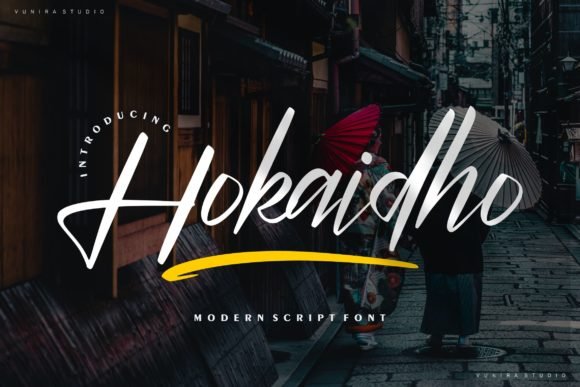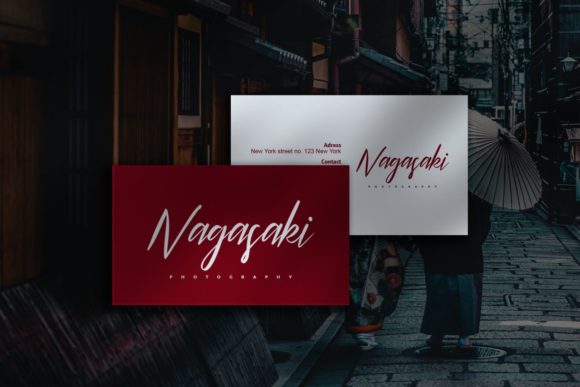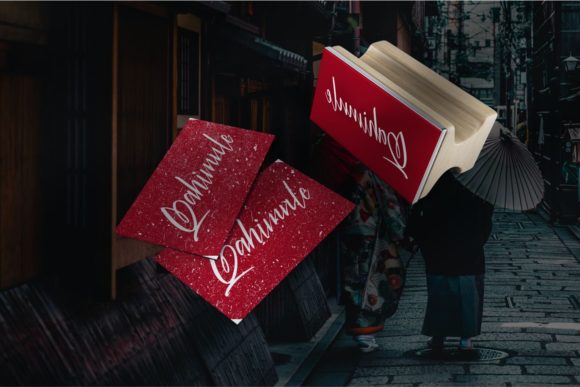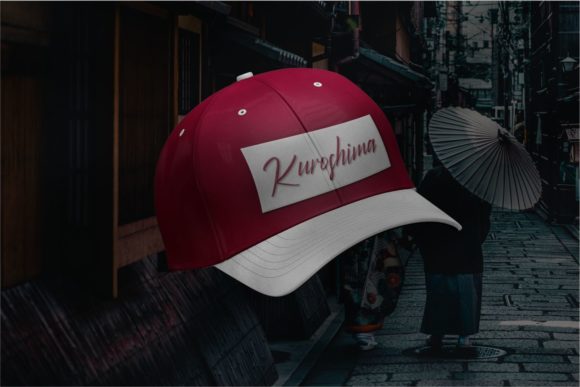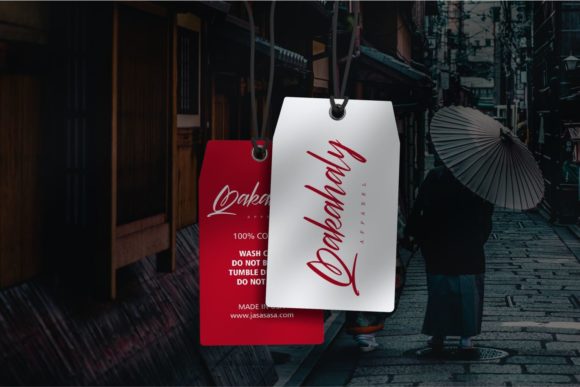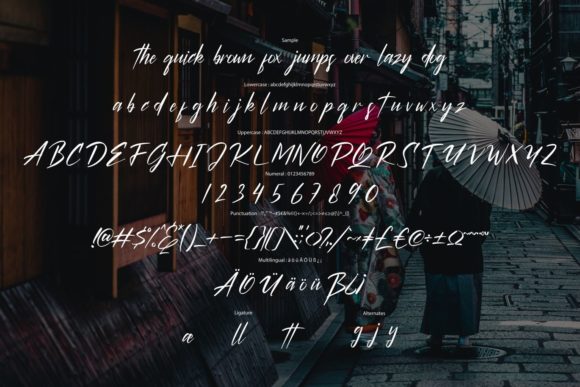
The Perfect Touch: Unlocking the Beauty of Hokaidho Font
Remember that moment when you stumbled upon the perfect font to elevate your design? It’s like finding the missing piece of a puzzle – everything just falls into place. For designers, this moment is a game-changer. It’s the difference between a good design and a great one. And, if you’re anything like us, you’re always on the lookout for that special something to take your work to the next level.
Enter Hokaidho Font, a stylish and delicate script font that’s sure to become your new go-to. With its clean, thin, and smooth vibe, it’s the perfect addition to any design. Whether you’re working on a wedding invitation, a branding project, or a social media campaign, Hokaidho Font is the perfect choice to add a touch of elegance and sophistication.
As a valuable asset for designers, Hokaidho Font offers a level of versatility and flexibility that’s hard to find. Its unique design makes it suitable for a wide range of projects, from fine art to commercial use. So, what are you waiting for? Discover the beauty of Hokaidho Font and take your designs to new heights.
Hokaidho Font Key Features
- Font Family: Hokaidho is a unique, modern script font designed for various applications, including logos, titles, and body text.
- Unique Characteristics: The font features a distinctive, flowing script style with subtle nuances and variations in letterforms, giving it a hand-written feel.
Hokaidho Font Review
I’ve had the chance to dive into the Hokaidho Font, and I must say it’s an intriguing choice for designers. ✨ The font’s elegant, cursive script is reminiscent of traditional Japanese calligraphy, making it perfect for creating a sophisticated and refined look.
Here are some of its standout features:
- ✨ Beautifully crafted cursive script that adds a touch of elegance to any design.
- ✨ Supports both Western and Eastern languages, including Japanese, making it versatile for global projects.
- ✨ Comes in a range of weights, from light to bold, allowing for greater design flexibility.
However, I do have some concerns:
- ⚠️ The font may not be the best choice for text-heavy designs, as its cursive script can make reading difficult at smaller font sizes.
- ⚠️ Some of the weights may feel slightly inconsistent, which could impact the overall design cohesion.
Overall, I think the Hokaidho Font is a great addition to any designer’s toolkit. While it may have some limitations, its unique character and versatility make it a valuable choice for the right project. With careful consideration and design planning, the Hokaidho Font can help create stunning and memorable designs.
The Hokaidho font is ideal for creative projects such as:
- Brand logos and identity design
- Event promotions and marketing materials
- Personalized gifts and cards
Alternatives to Hokaidho Font
The Hokaidho Font is a popular Japanese sans-serif font, but sometimes designers may need alternatives for various reasons. Here are a few options that can be used as substitutes: